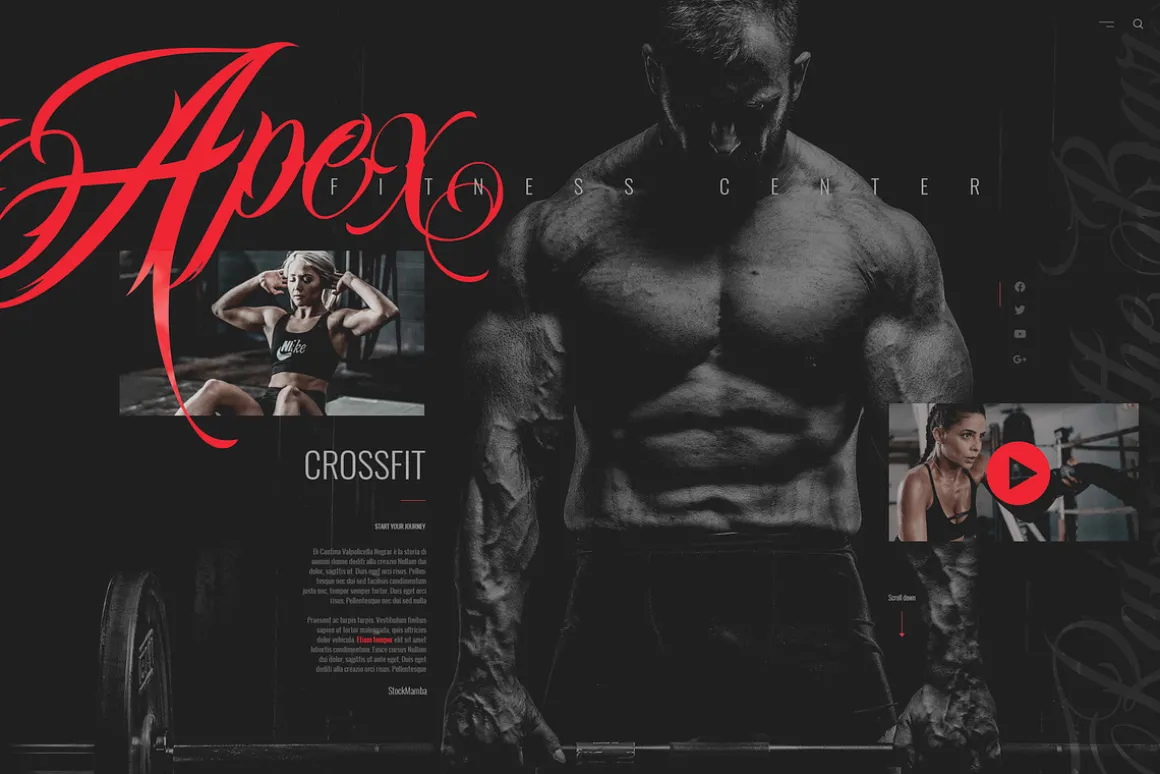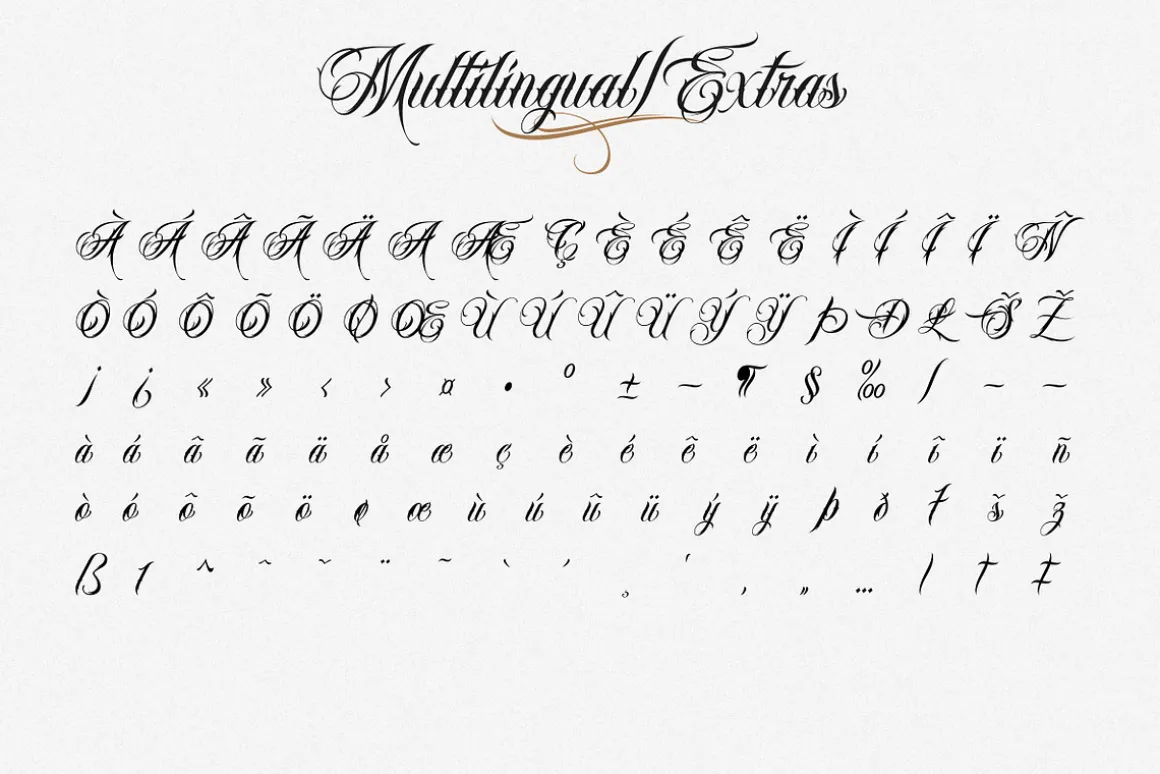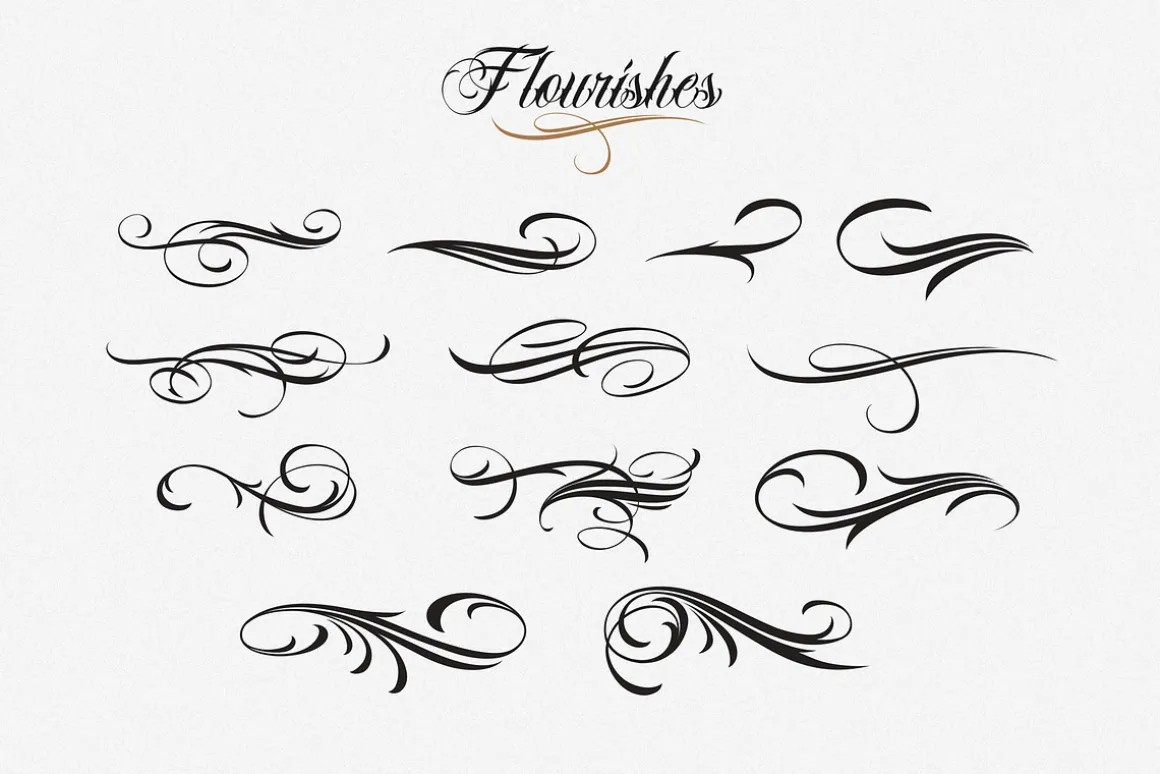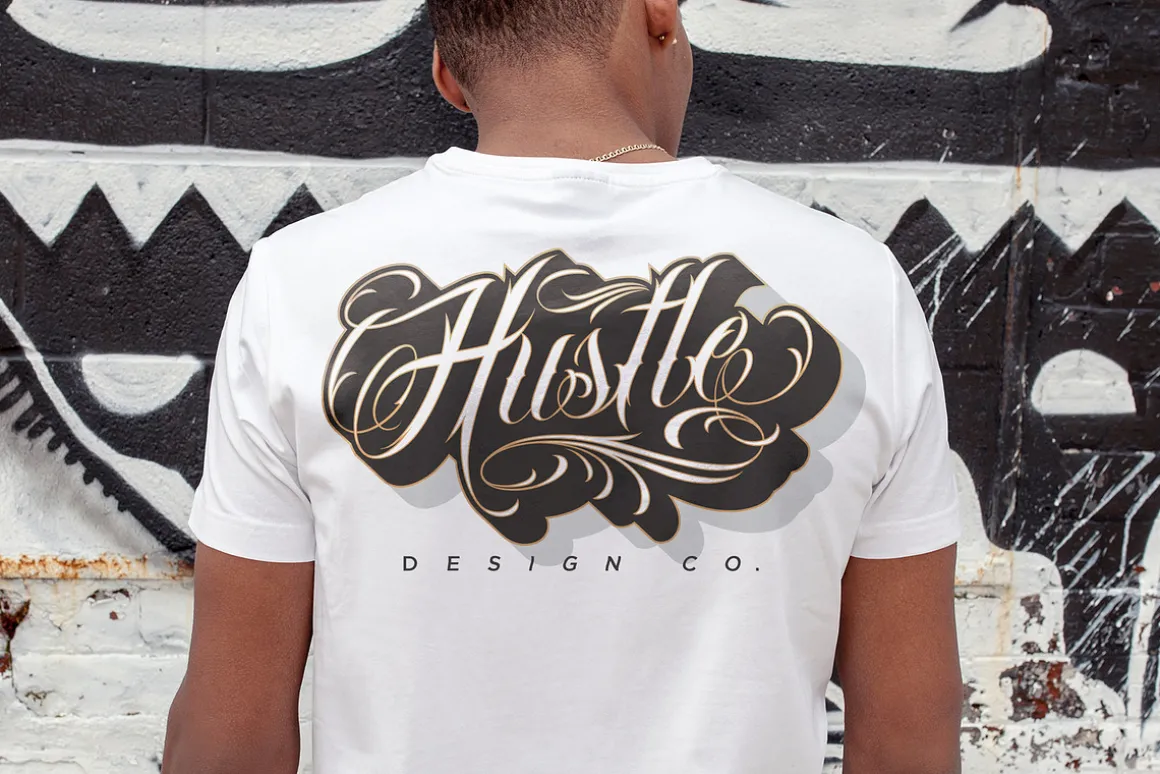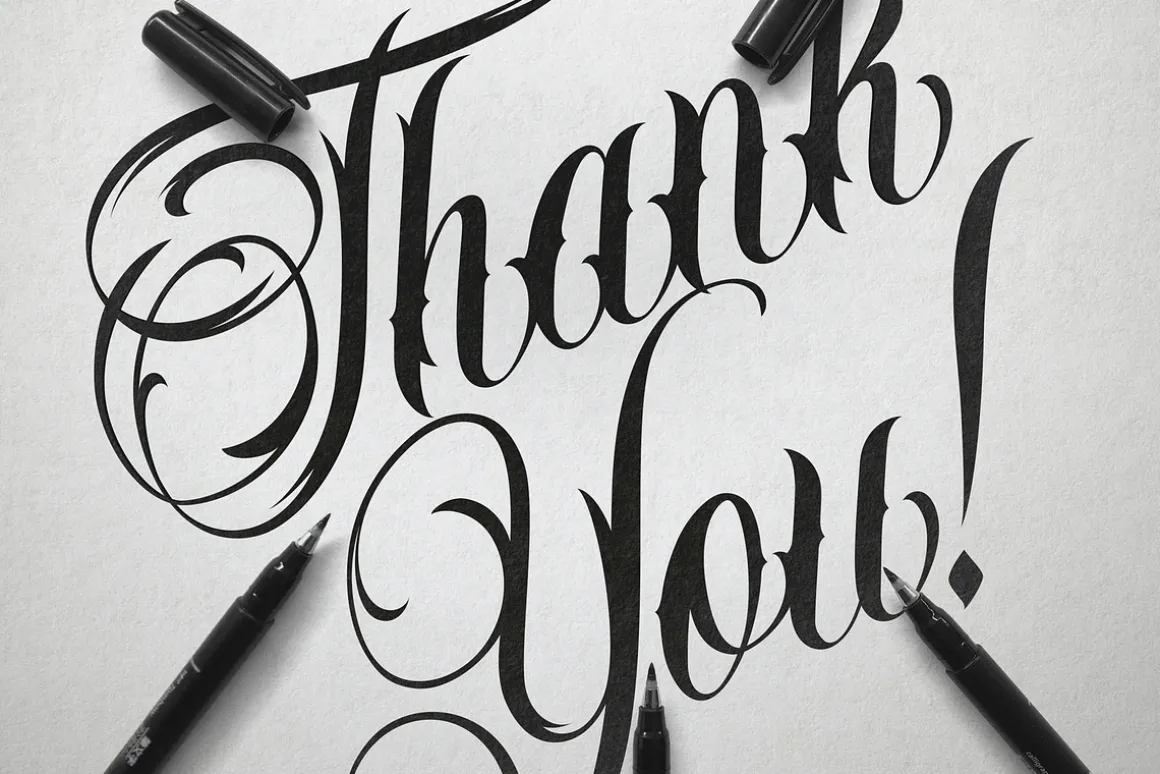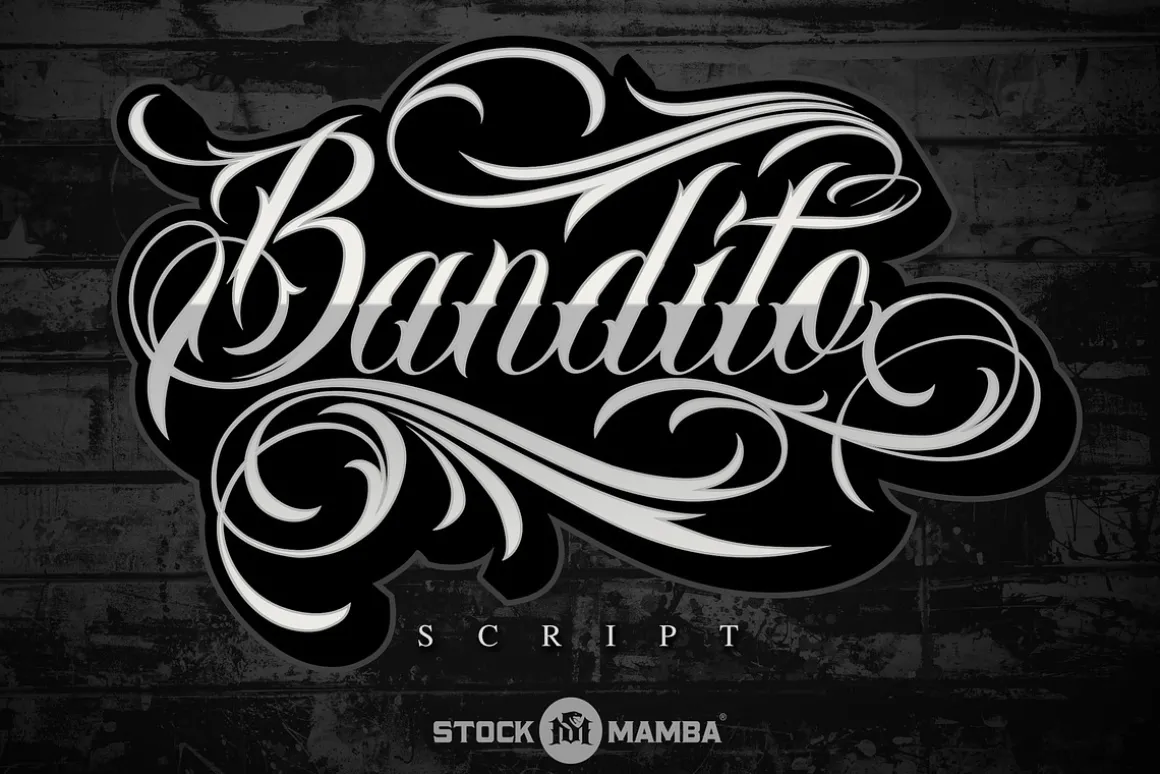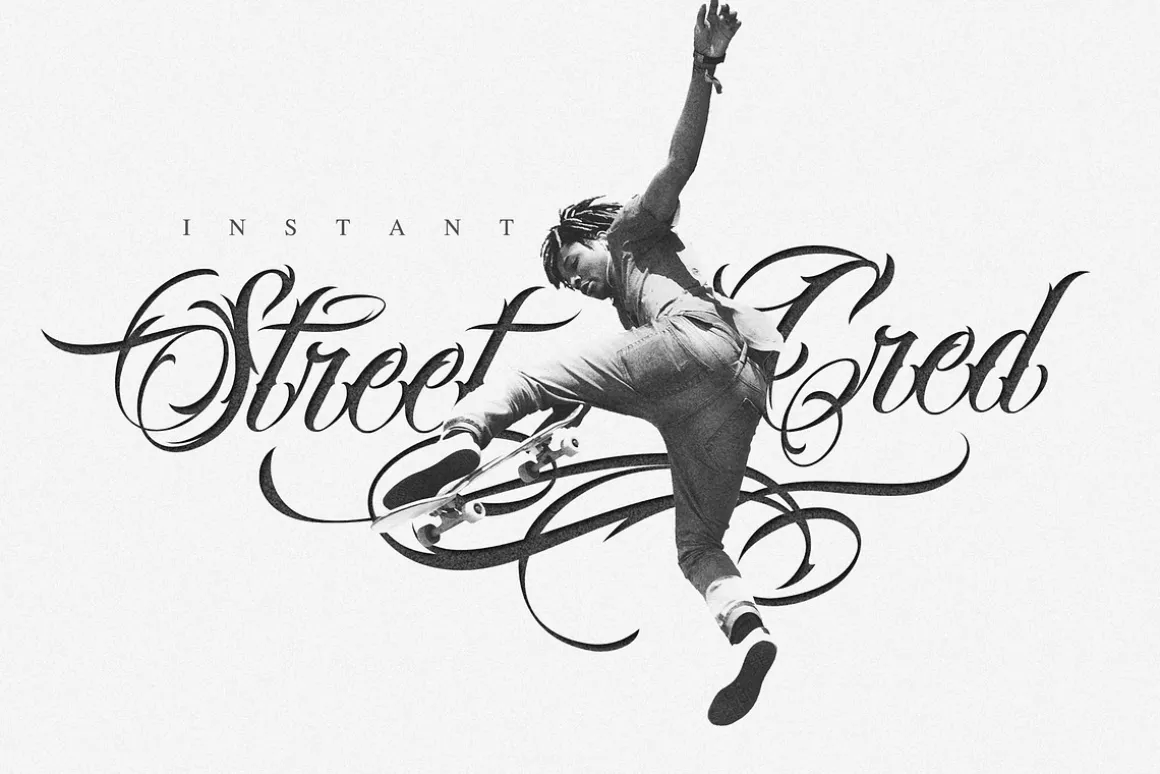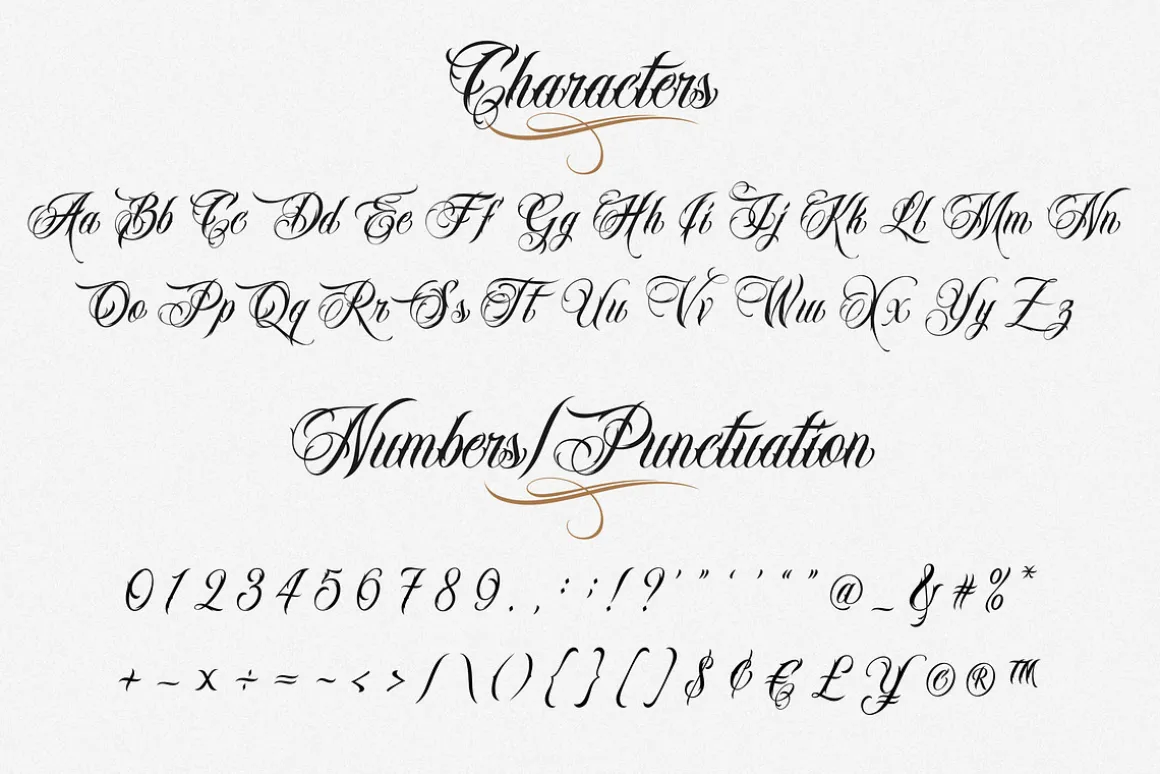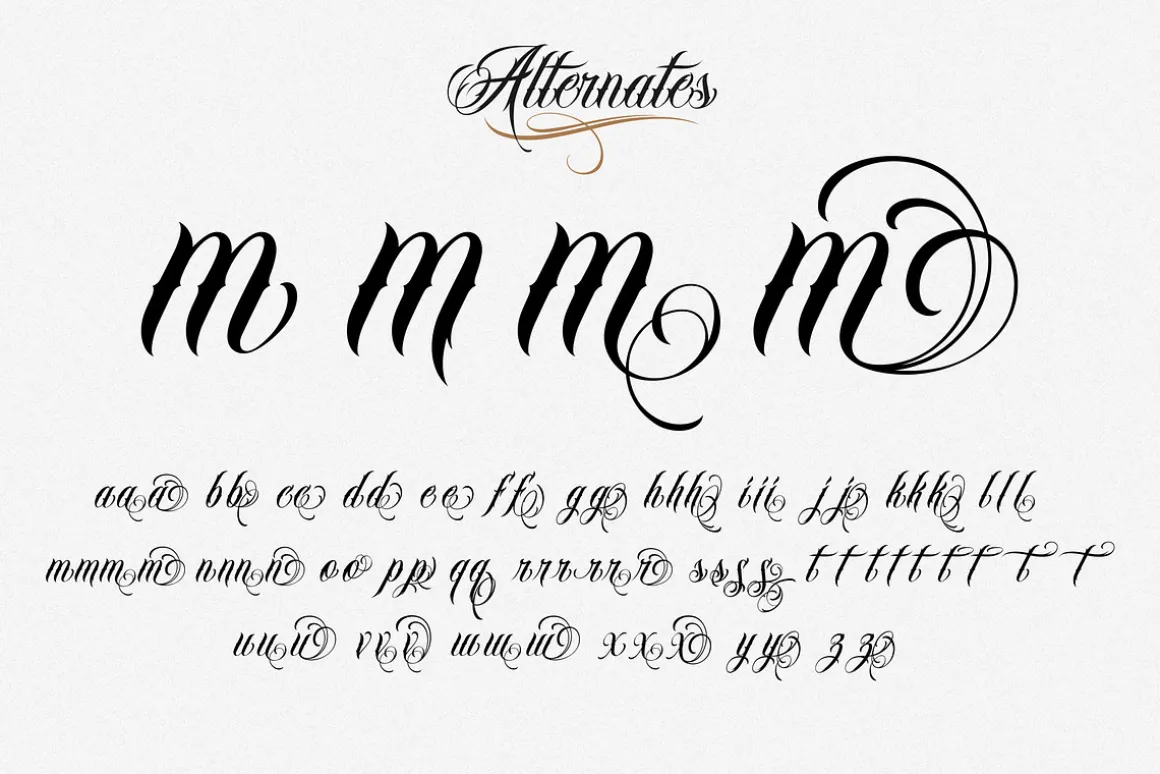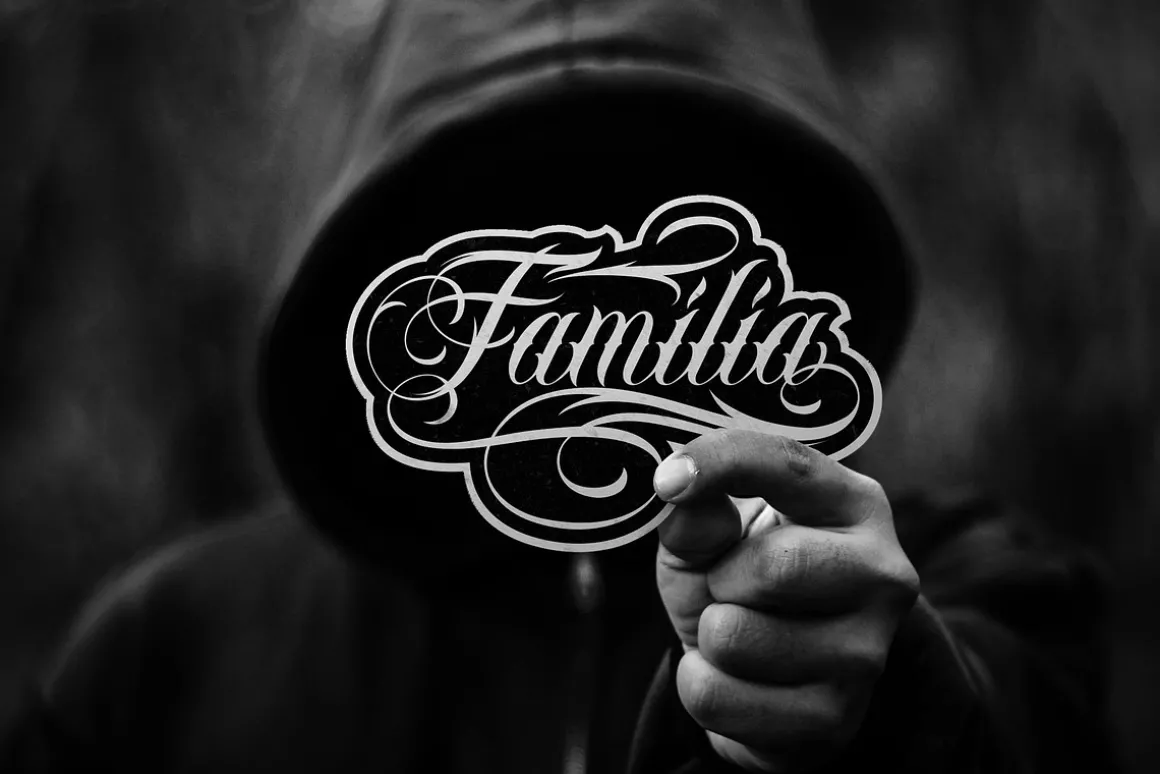
StockMamba presents Bandito Script –an urban tattoo script font with over 250 glyphs, multilingual support, loads of alternates for the lowercase letters, and a set of bonus flourish elements.
The bonus swashes have been added as an alternate font. Type capital A-L to display them. Lower case a-l will display a mirror image of the capital letter versions.